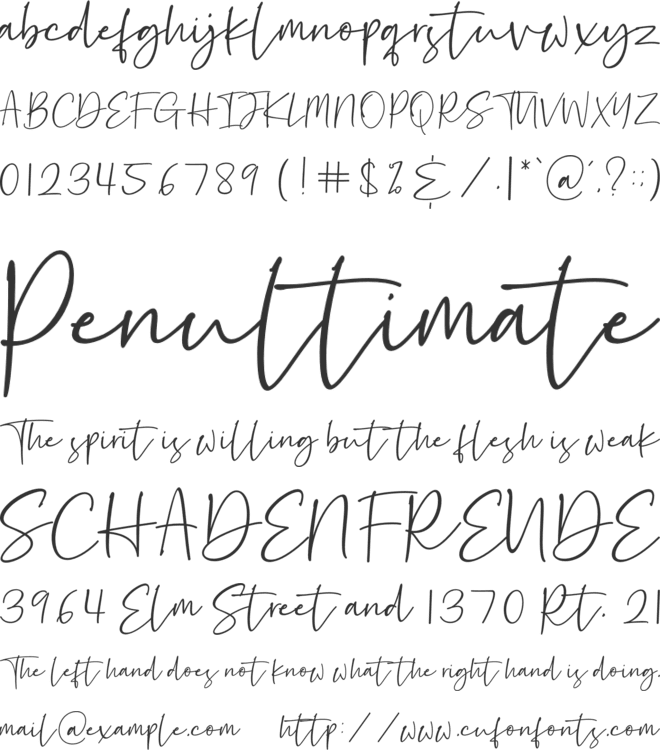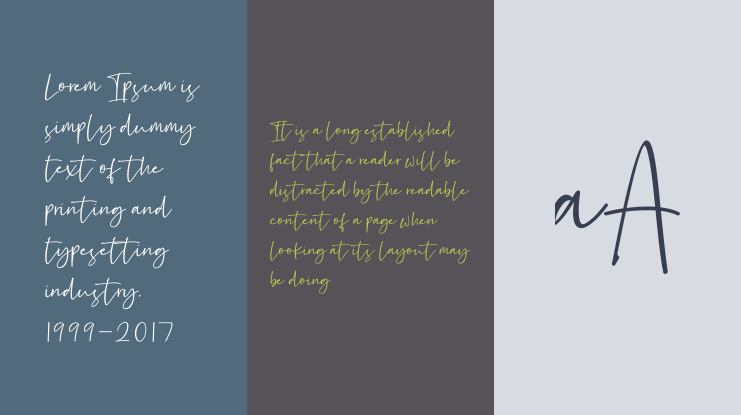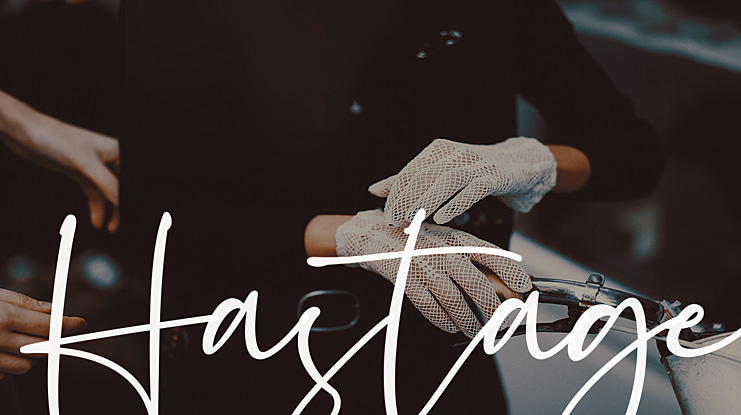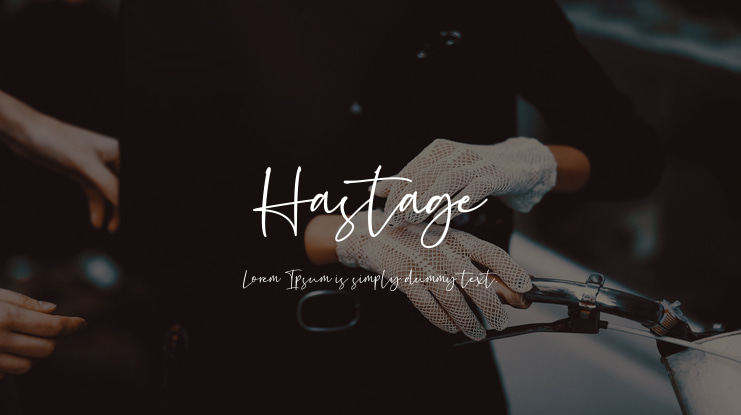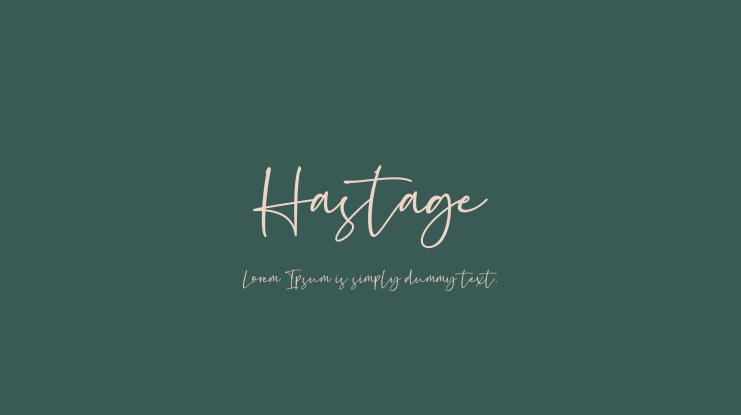
Hastage Font
Hastage - Handwritten Font is a new modern & stylish handwritten font. I'ts Perfect for logo,branding, invitation, tittle, wedding designs, social media posts, advertisements, product packaging, product designs, label, photography, watermark, special event,magazine,web design,etc.What's Included :